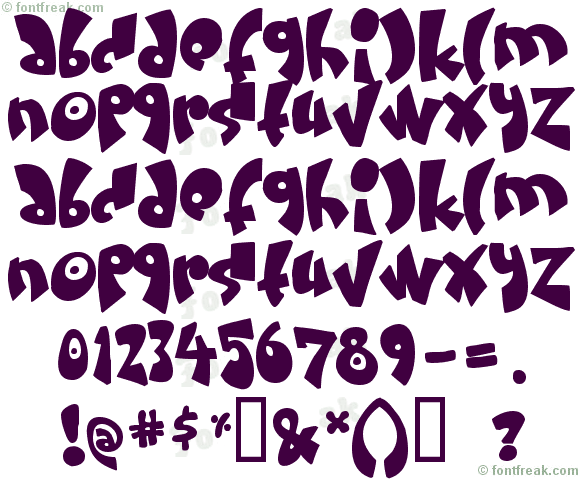
Cream and sugar
About Cream And Sugar
Cream And Sugar, designed by Pizzadude (Jakob Fischer), is a delightful display font that embodies a playful yet elegant charm. This freeware font features a unique handwritten style, characterized by its smooth curves and whimsical flair. The strokes are consistently rounded, creating a friendly and inviting appearance. The moderate contrast between thick and thin lines adds a touch of sophistication, while the generous spacing between characters ensures legibility, making it suitable for a variety of applications.
Ideal for creative projects that require a lighthearted touch, Cream And Sugar excels in settings such as wedding invitations, where its charming character can enhance the romantic theme. It also works beautifully for restaurant menus, particularly in cafés and bakeries, where the name evokes sweet treats and comfort. Additionally, this font is perfect for greeting cards, social media graphics, and children’s book covers, appealing to a wide audience looking for a fun yet polished typographic solution.
Targeting graphic designers, small business owners, and content creators alike, Cream And Sugar offers a versatile aesthetic that can elevate any creative endeavor. The font's approachability makes it particularly appealing to brands aiming to convey warmth and friendliness, while still maintaining a professional edge.
What sets Cream And Sugar apart is its ability to blend casual elegance with functionality. It captures the essence of joy and creativity, making it an excellent choice for projects that need a personal touch. With the Cream And Sugar font free download, you can easily incorporate this charming typeface into your designs, allowing your work to stand out with a unique flair that resonates with your audience.